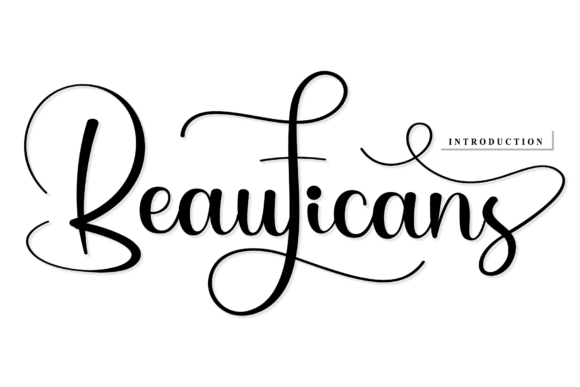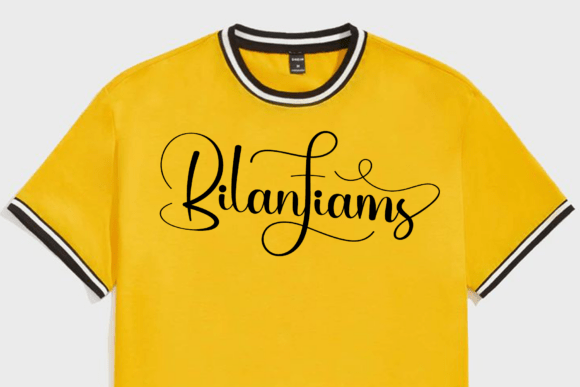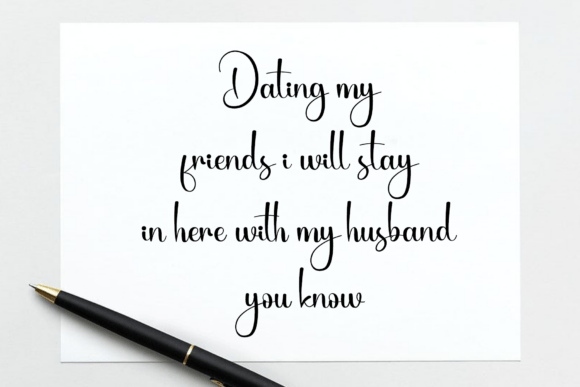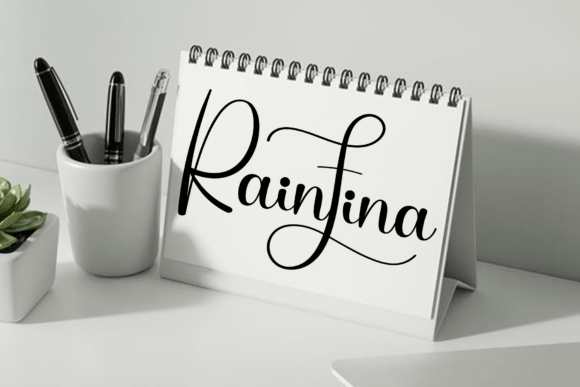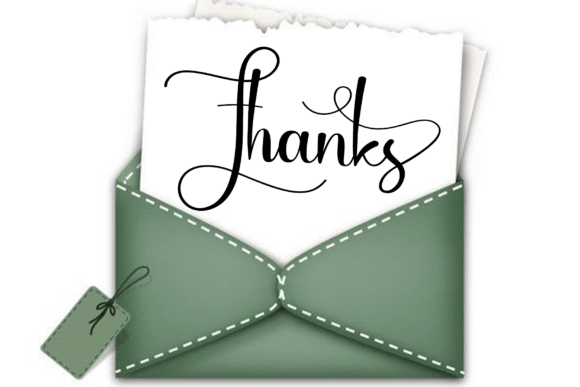
Discover the Artistic Flair of the Beauticans Font
Have you ever found yourself captivated by the handwritten notes of a loved one, or the elegant script of a luxury brand? The way the ink flows across the page, creating a sense of warmth and personality, is a truly magical thing. It’s moments like these that inspire designers to push the boundaries of typography and create fonts that evoke a sense of artisanal artistry.
Enter the Beauticans Font, a sophisticated and rhythmic script font that embodies the perfect balance of calligraphy and organic charm. Its sweeping, looping ascenders create a customized feel that’s both unique and timeless. Whether you’re designing for artisanal food branding, boutique product packaging, or upscale lifestyle marketing, the Beauticans Font is a valuable tool in your creative arsenal.
Beauticans Font Key Features
- Font Family: Beauticans Font
- Unique Characteristics: Features a unique blend of elegant and modern design elements, including intricate flourishes and stylish letterforms.
Designer Review: Beauticans Font
Beauticans Font is a beautiful, elegant script font that catches the eye. ✨ It’s perfect for designs that require a touch of sophistication and whimsy. The font is highly legible, even at smaller font sizes, making it ideal for body text as well as headings.
The font’s unique character shapes and flair make it stand out in any design. ✨ I particularly love the way the font connects the letters, giving it a cohesive and flowing feel. The font is also highly customizable, with a range of weights and styles to choose from.
While Beauticans Font is a stunning addition to any design, there are a few limitations to consider. ⚠️ The font can be a bit too ornate for some designs, making it difficult to read at small sizes. Additionally, the font may not be the best choice for designs that require a lot of bold or italic text, as it can become difficult to distinguish between the two.
In conclusion, Beauticans Font is a beautiful and versatile script font that is perfect for a wide range of designs. While it may have some limitations, the font’s unique character and high level of customization make it a great addition to any designer’s toolkit.
- Highly legible, even at small font sizes
- Unique character shapes and flair
- Highly customizable, with a range of weights and styles
- Perfect for designs that require a touch of sophistication and whimsy
Beauticans Font is ideal for:
- Fashion and beauty branding
- Food and beverage packaging
- Any design requiring a elegant, cursive font
For best results, pair Beauticans Font with a clean and simple design aesthetic, and use it sparingly to create visual interest.
Great Vibes is a modern, elegant script font perfect for adding a touch of sophistication to your designs. It’s ideal for use in titles, headings, and other prominent text elements. Compared to Beauticans Font, Great Vibes has a more refined and polished look, making it suitable for high-end branding and luxury products.
Alex Brush is a beautiful, handwritten font that adds a personal touch to your designs. It’s perfect for use in quotes, testimonials, and other text elements where you want to convey a sense of warmth and personality. Compared to Beauticans Font, Alex Brush has a more organic and whimsical feel, making it suitable for creative and artistic projects.
Carolyna Pro is a elegant, modern script font that’s perfect for use in titles, headings, and other prominent text elements. It’s ideal for designers who want to create a sense of luxury and sophistication without being too over-the-top. Compared to Beauticans Font, Carolyna Pro has a more refined and polished look, making it suitable for high-end branding and corporate projects.
What is the recommended font size for using Beauticans Font?
The recommended font size for Beauticans Font is between 12pt and 24pt, depending on the design application and the intended use. For body text, a font size of 14pt or 16pt is often a good starting point. For headings, you can use a larger font size, such as 24pt or 30pt.